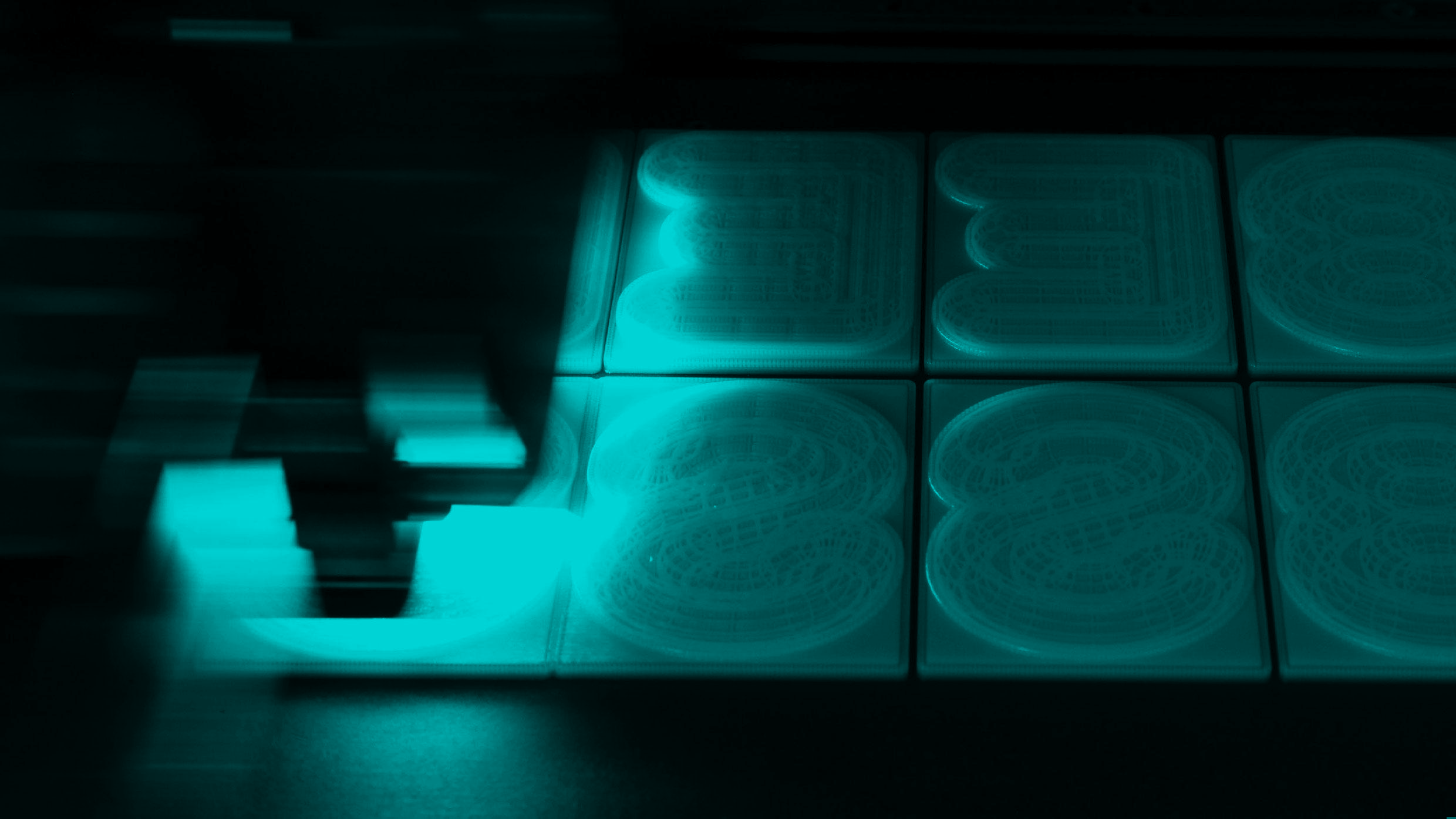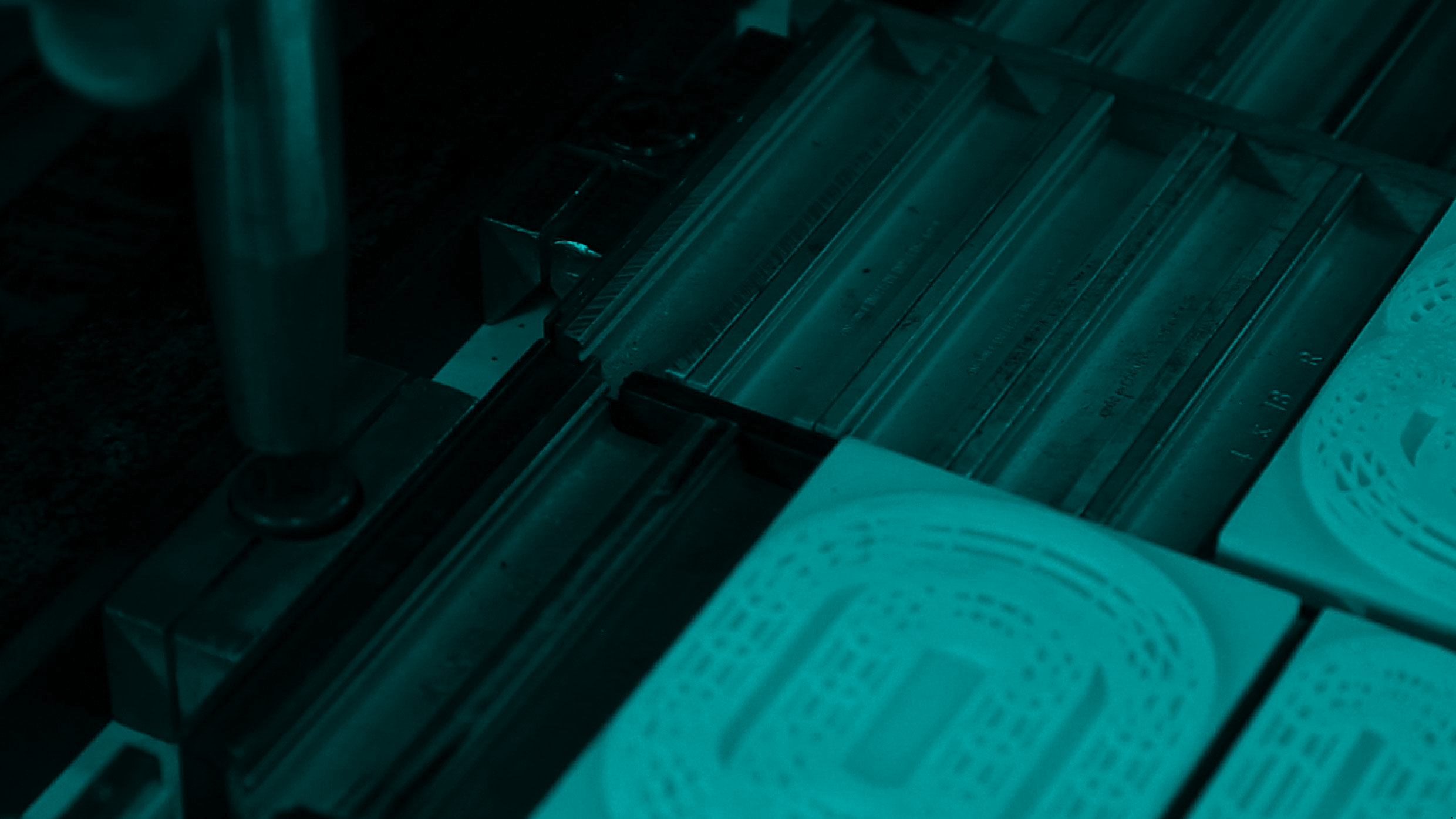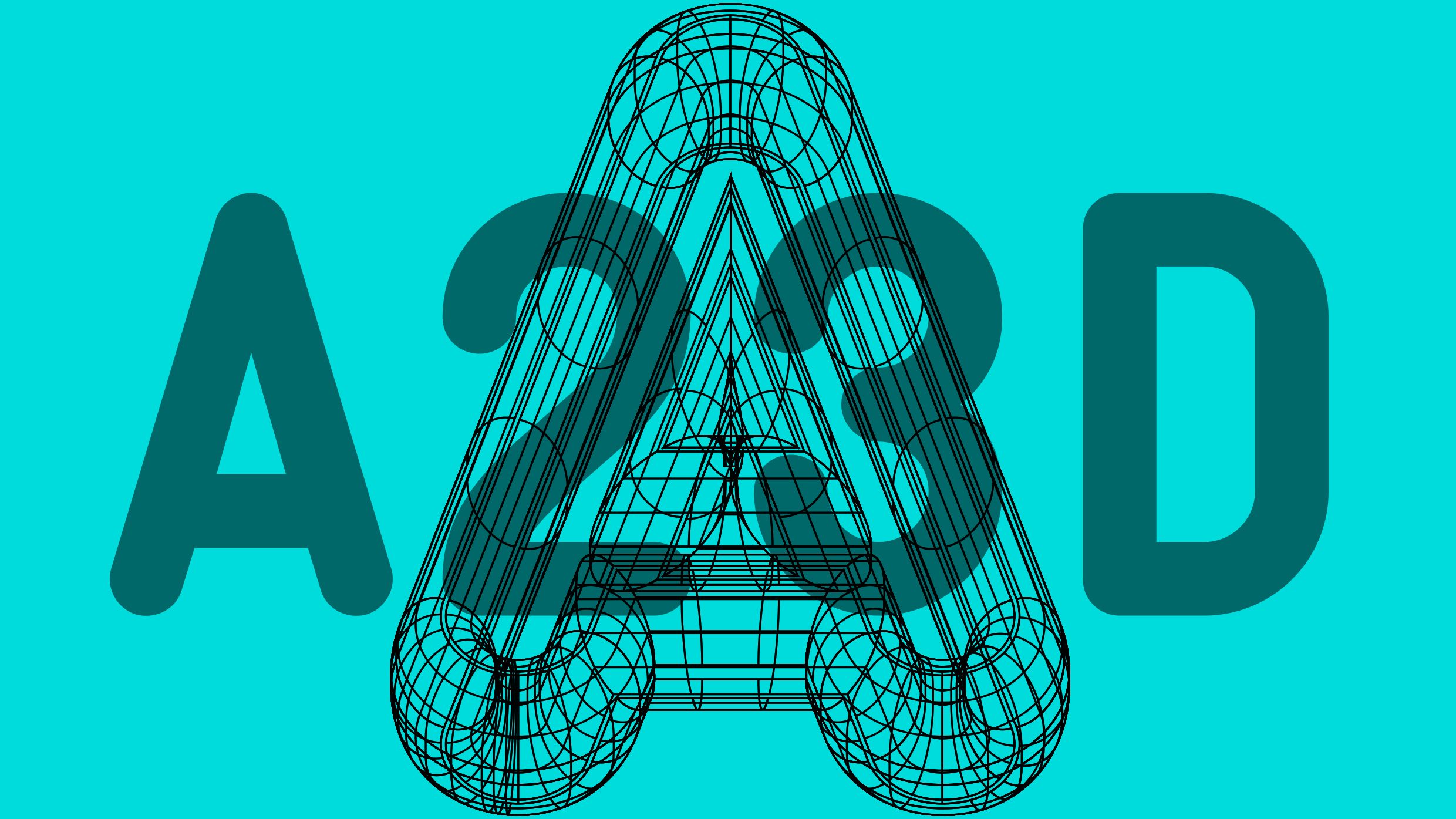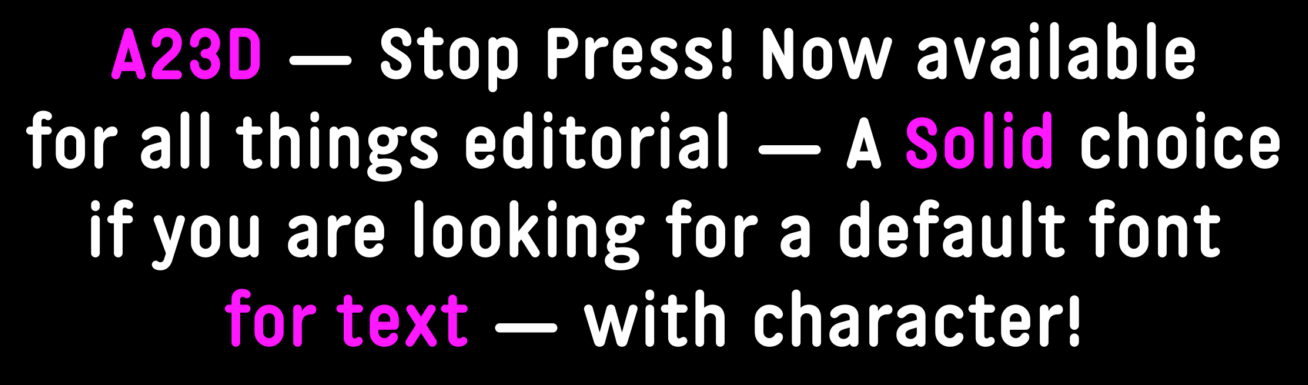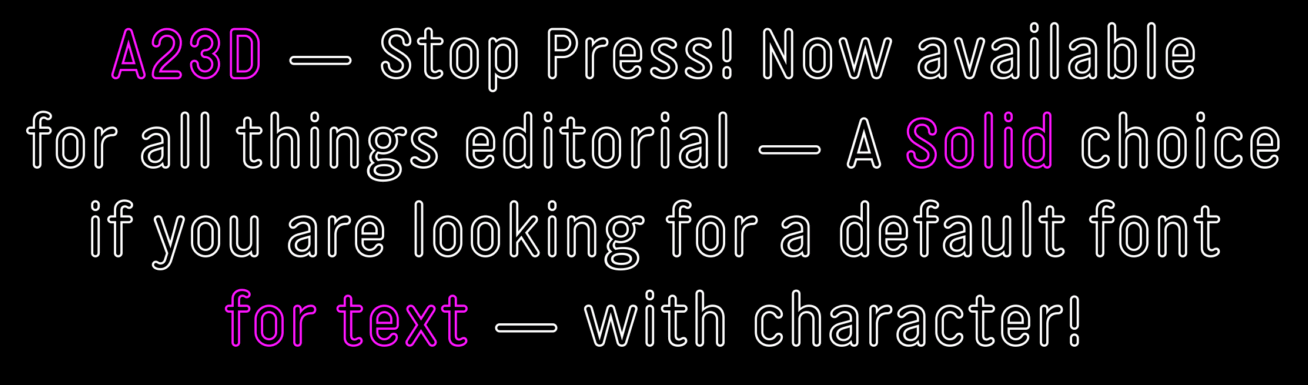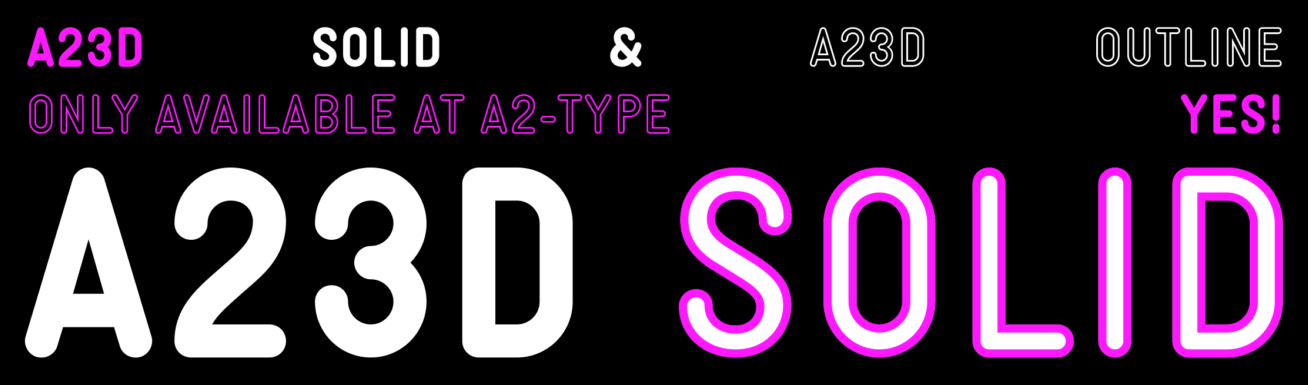
A23D SOLID is the starting point and hidden core for the design of our A23D letterpress wireframe alphabet, commissioned by New North Press in London. This solid, mono-linear, rounded style font was designed as a ‘skeleton’ in order to then extrude the core form into a wireframe mesh – which was later 3D printed and supplied to the client as a fully working letterpress font set. Watch the movie here. A23D Outline (2018) is a perfectly crafted ‘exoskeleton’ iteration of the Solid style.